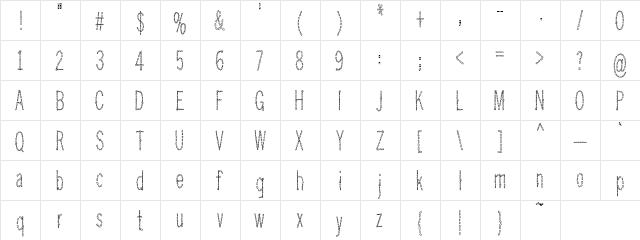
PC Primitive Stitch Regular Font Preview
PC Primitive Stitch Regular
PC Primitive Stitch Regular Font Details
Design Context for PC Primitive Stitch Typeface
PC Primitive Stitch takes a measured approach to typography — its balanced proportions and neutral character make it a reliable workhorse for both digital and print work.